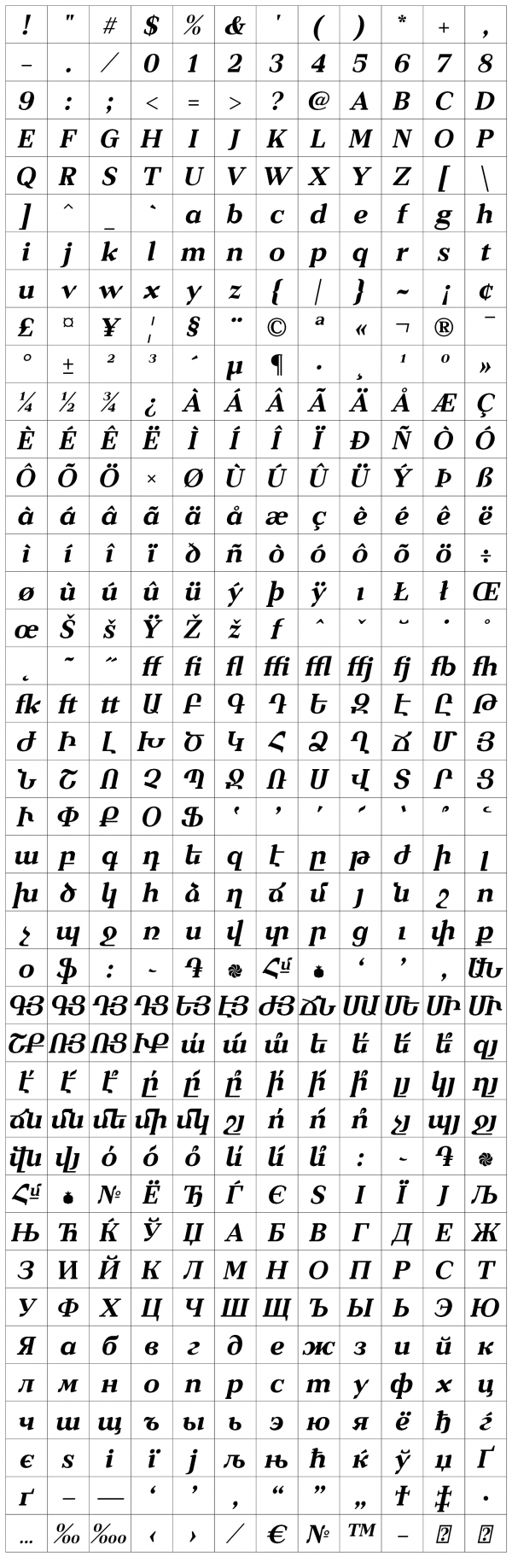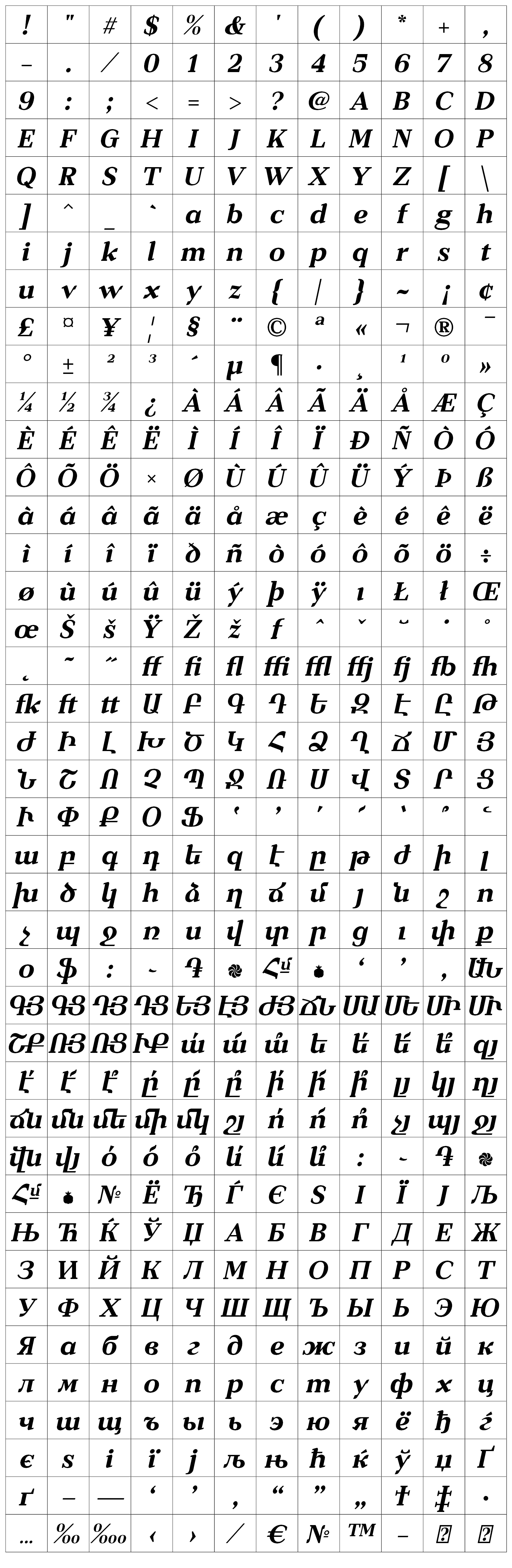
GHEA Hayq Bold Italic
Design date: 2024
Styles: 16 (ExtraLight, ExtraLight Italic, Light, Light Italic, Regular, Regular Italic, Medium, Medium Italic, SemiBold, SemiBold Italic, DemiBold, DemiBold Italic, Bold, Bold Italic, ExtraBold, ExtraBold Italic).
The font GHEA Hayq has contrast and serifs. Includes Latin, Armenian, Cyrillic alphabetic systems.
The font can be used as a text and title font, for books, albums, etc.